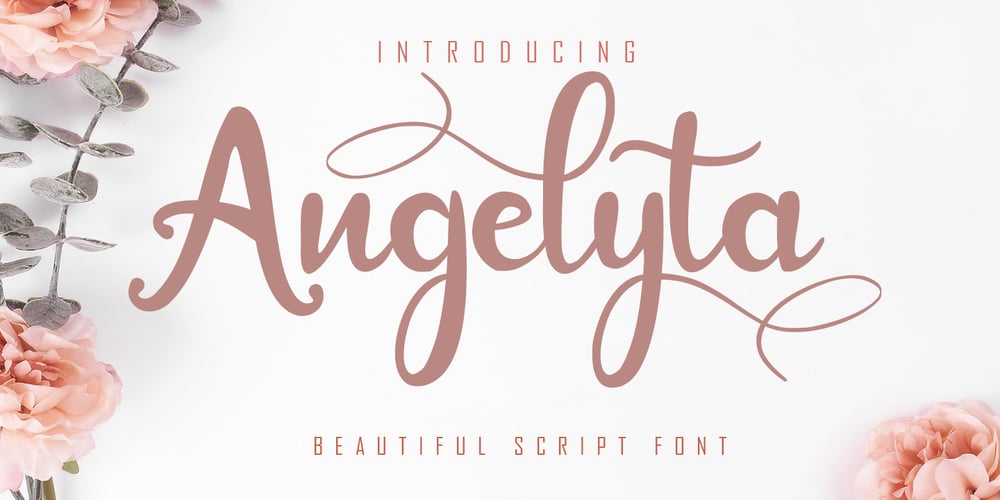
Angelyta
Angelyta font
Angelyta Font Family was designed by Irfan Mahmudin and published by Skiiller Studio. Angelyta contains 1 styles and family package options. Angelyta is an incredibly sweet and cool handwritten font with amazing swashes. It will add a romantic spark to any design project!